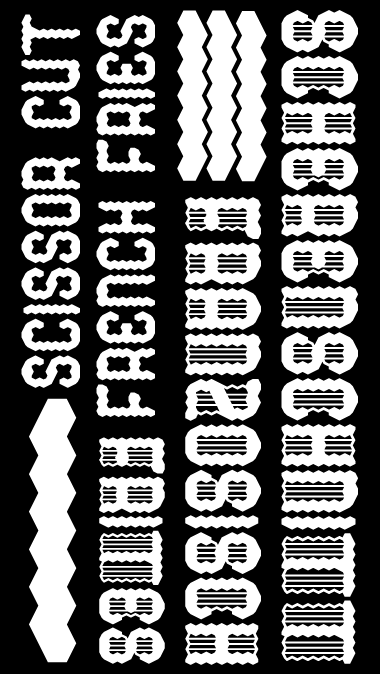
#2 :)
This striped pattern underneath capital letters looks like grill. A good idea. I totally dig the "s". 8. Could anyone bring some ketchup?
Don't know where you get all thoses ideas ;) nice one, very funny.
thanks, neoqueto. i agree about the grill. when i started this one it was named, Pot Belly Stove, more for the feet on the A which i did first. so that is part of the inspiration. also, first name is also part of the inspiration. hey, can you grill fries?
Congratulations! FontStruct Staff have deemed your FontStruction worthy of special mention. “Scherenschnitt Französisch Frites” is now a Top Pick.